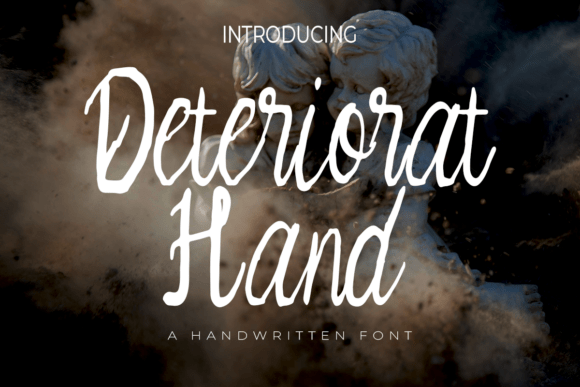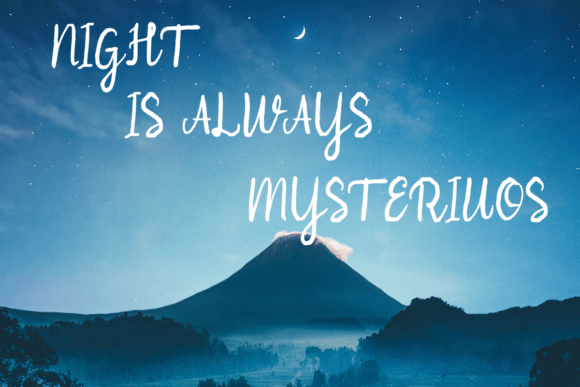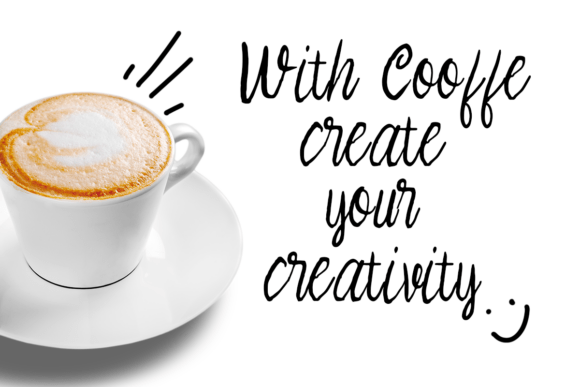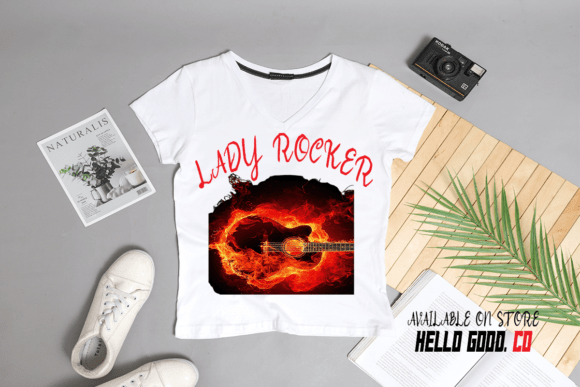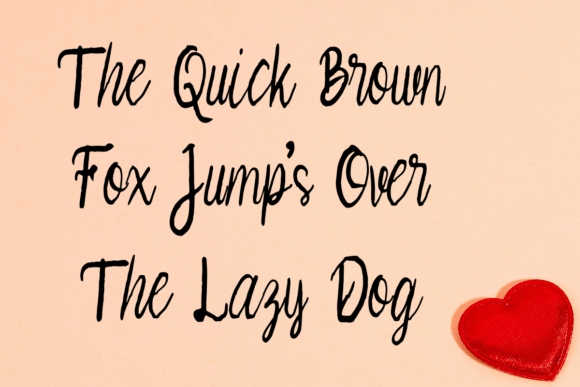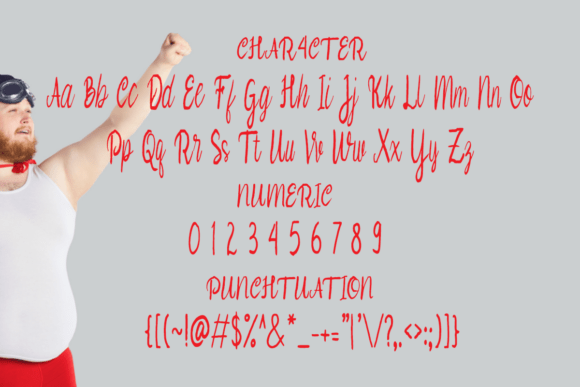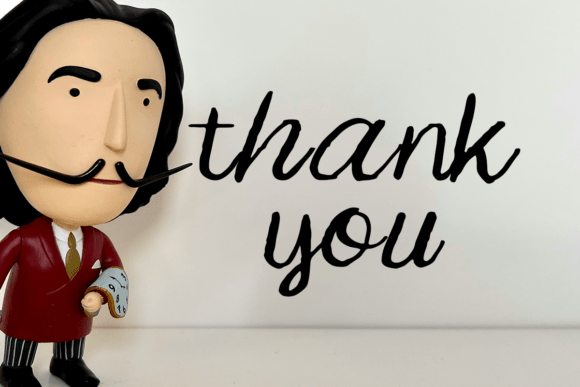
Unleash the Art of Handwritten Typography
Have you ever found yourself lost in the world of written words, mesmerized by the way a friend’s handwriting flows across a page? The imperfections, the nuances, the unique character that makes every letter feel like a personal message? That’s the magic of handwritten typography, and it’s a feeling that can be captured with precision and elegance using the Deteriorat Hand Font.
This exquisite font is a masterpiece of bespoke typography, carefully crafted to bring the natural beauty of handwritten style to your designs. Whether you’re a graphic designer, a writer, or simply someone who appreciates the art of the written word, the Deteriorat Hand Font is a valuable tool that can add a touch of personality and whimsy to your work.
Deteriorat Hand Font Key Features
- Unique Characteristics: This font features a distressed, hand-drawn look with subtle imperfections, giving it a unique and vintage feel.
- Kerning and Ligatures: The font includes advanced kerning and ligature pairs to ensure smooth text rendering and a professional look.
Deteriorat Hand Font Review
Overall, I think “Deteriorat Hand Font” has some unique qualities that make it stand out. ✨ Its distressed and weathered look is perfect for designs that need a vintage or aged feel. The font’s irregularities give it a handmade, one-of-a-kind look that’s hard to replicate with more polished fonts.
Some of the strengths of this font include:
- ✨ Unique and distinctive look that’s perfect for vintage or distressed designs
- ✨ Highly customizable with a wide range of weight and style options
- ✨ Includes a large character set with international characters and symbols
However, I do have some concerns about the font’s limitations:
- ⚠️ May be difficult to read in small sizes or at high resolutions due to its irregularities
- ⚠️ Can be overwhelming or cluttered if used excessively or without proper design restraint
- ⚠️ Limited support for certain languages or character sets
Overall, I think “Deteriorat Hand Font” is a solid choice for designers looking to add a unique touch to their projects. While it may have some limitations, its strengths make it a valuable addition to any design library.
The Deteriorat Hand Font is ideal for:
- Adding a vintage or distressed look to your designs.
- Creating a handmade or artisanal feel.
- Designing invitations, posters, or other promotional materials.
- Adding a touch of whimsy or personality to your designs.
Alternatives to Deteriorat Hand Font
Great Vibes is a beautiful, handwritten script font. It’s perfect for creating a sense of elegance and sophistication in your designs. Great Vibes is ideal for use in wedding invitations, branding materials, and other high-end projects where a touch of luxury is desired. In comparison to Deteriorat Hand Font, Great Vibes has a more refined and polished look, making it suitable for a wider range of applications.
Carolyna Pro is a modern, calligraphic font that’s perfect for creating a sense of drama and flair in your designs. It’s ideal for use in fashion branding, advertising materials, and other projects where a touch of sophistication is desired. In comparison to Deteriorat Hand Font, Carolyna Pro has a more modern and edgy look, making it suitable for a wider range of applications.
Alex Brush is a elegant, handwritten font that’s perfect for creating a sense of warmth and personality in your designs. It’s ideal for use in branding materials, advertising campaigns, and other projects where a touch of humanity is desired. In comparison to Deteriorat Hand Font, Alex Brush has a more delicate and whimsical look, making it suitable for a wider range of applications.